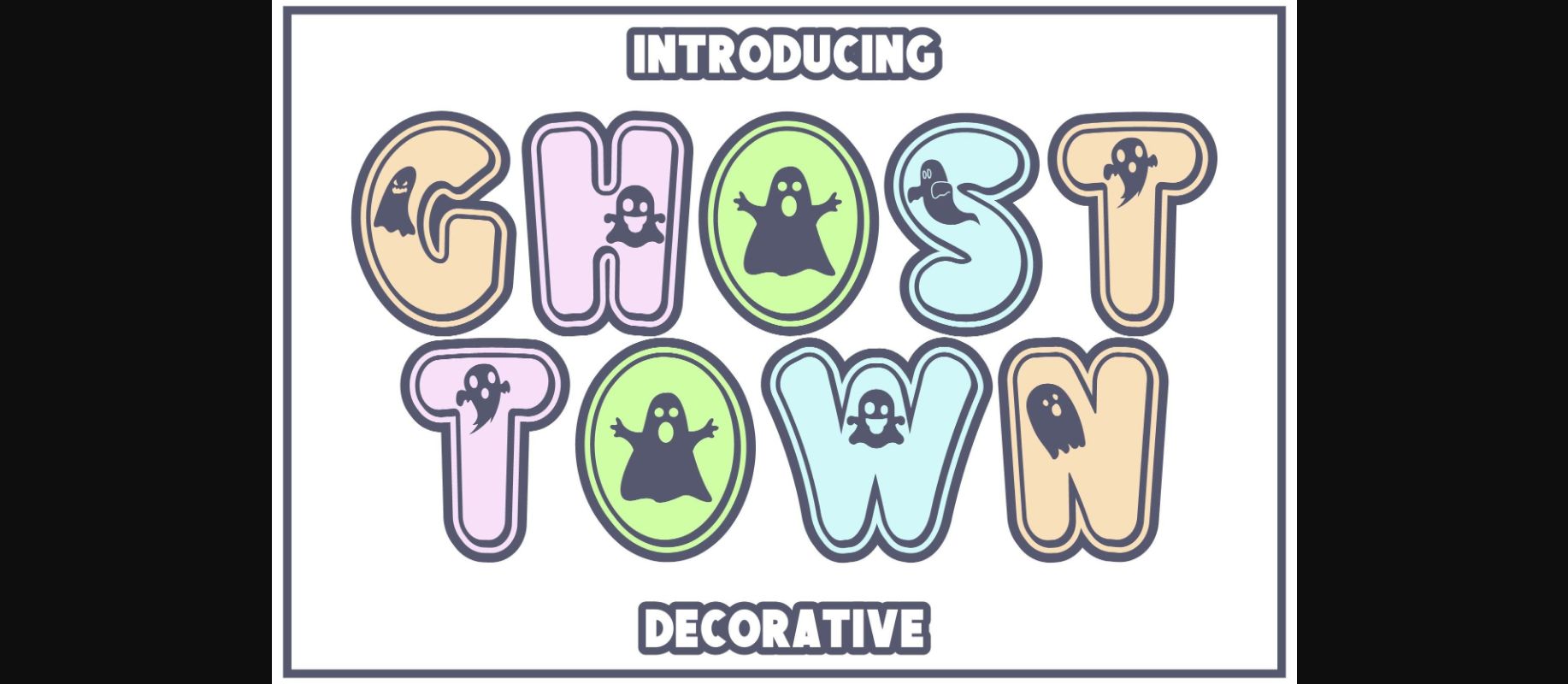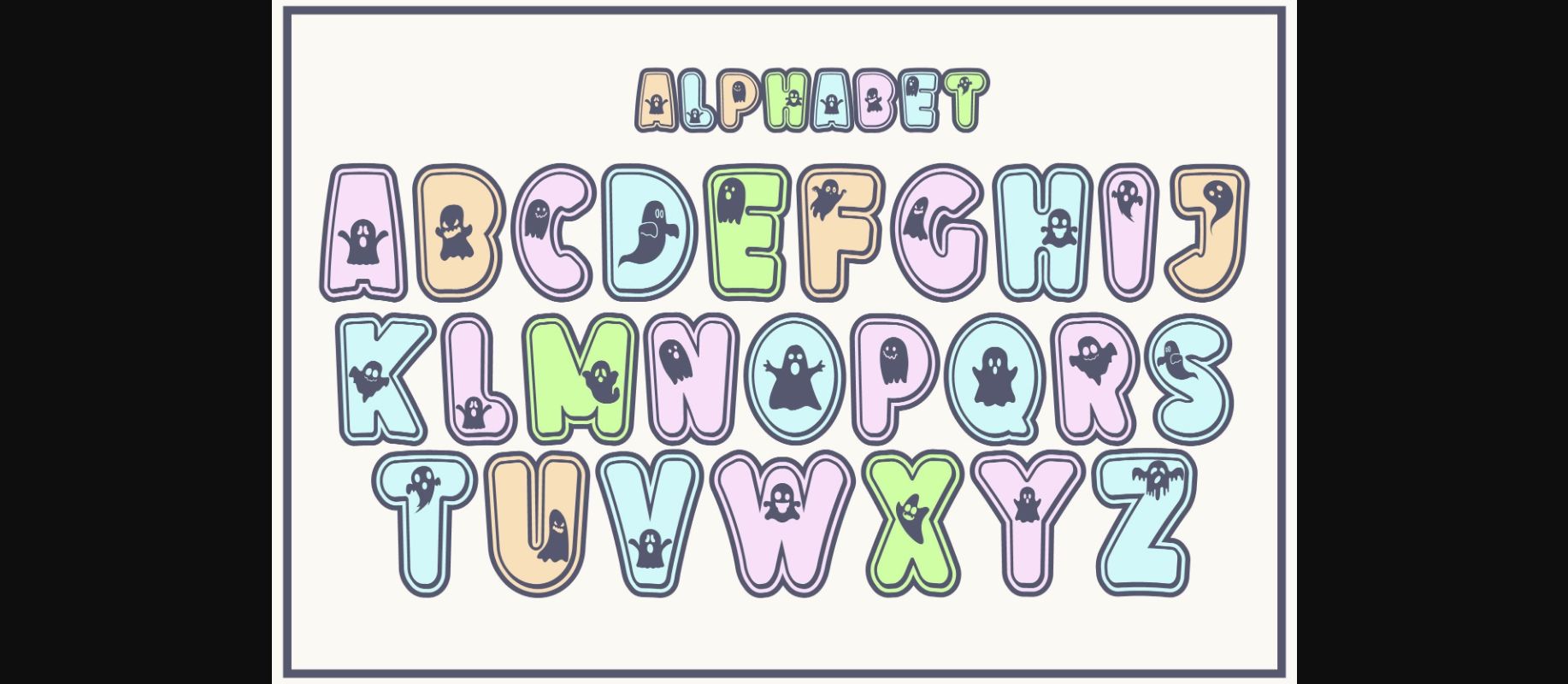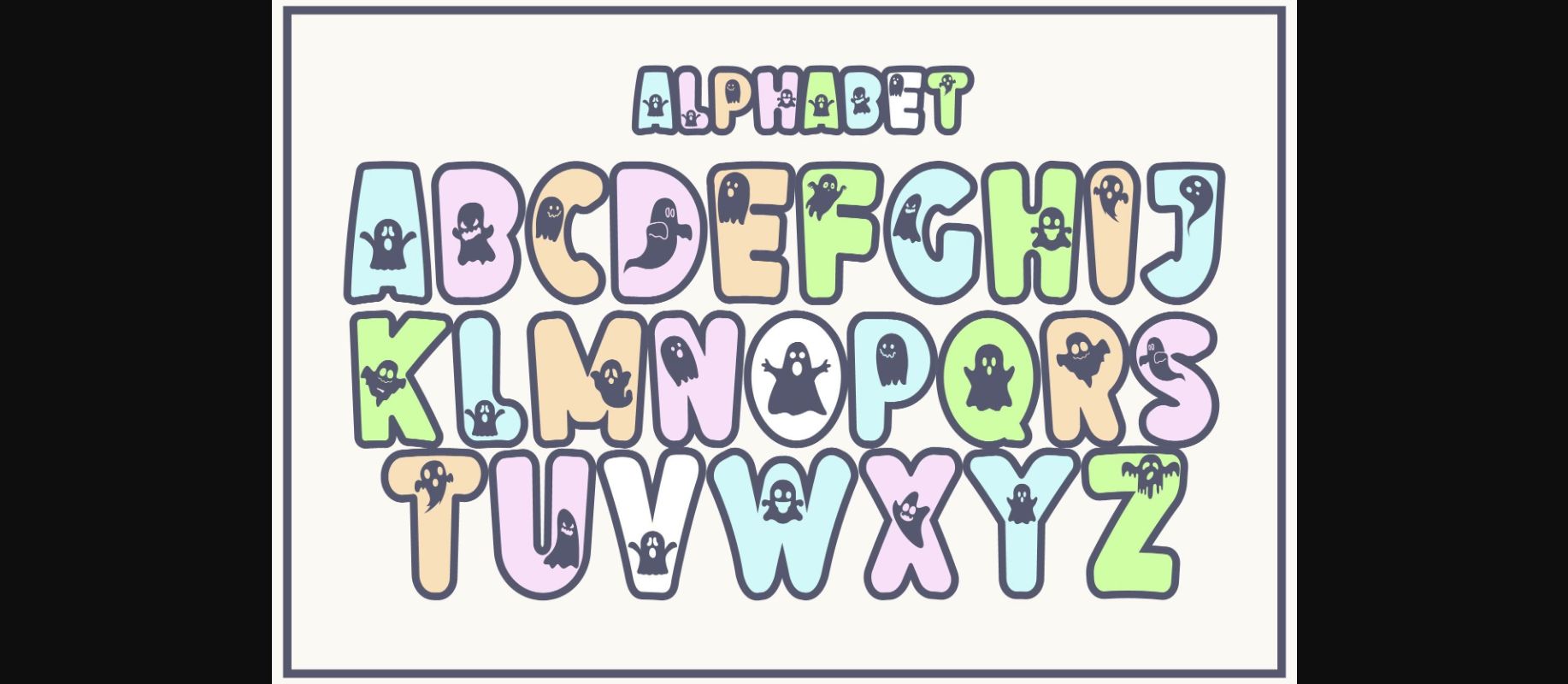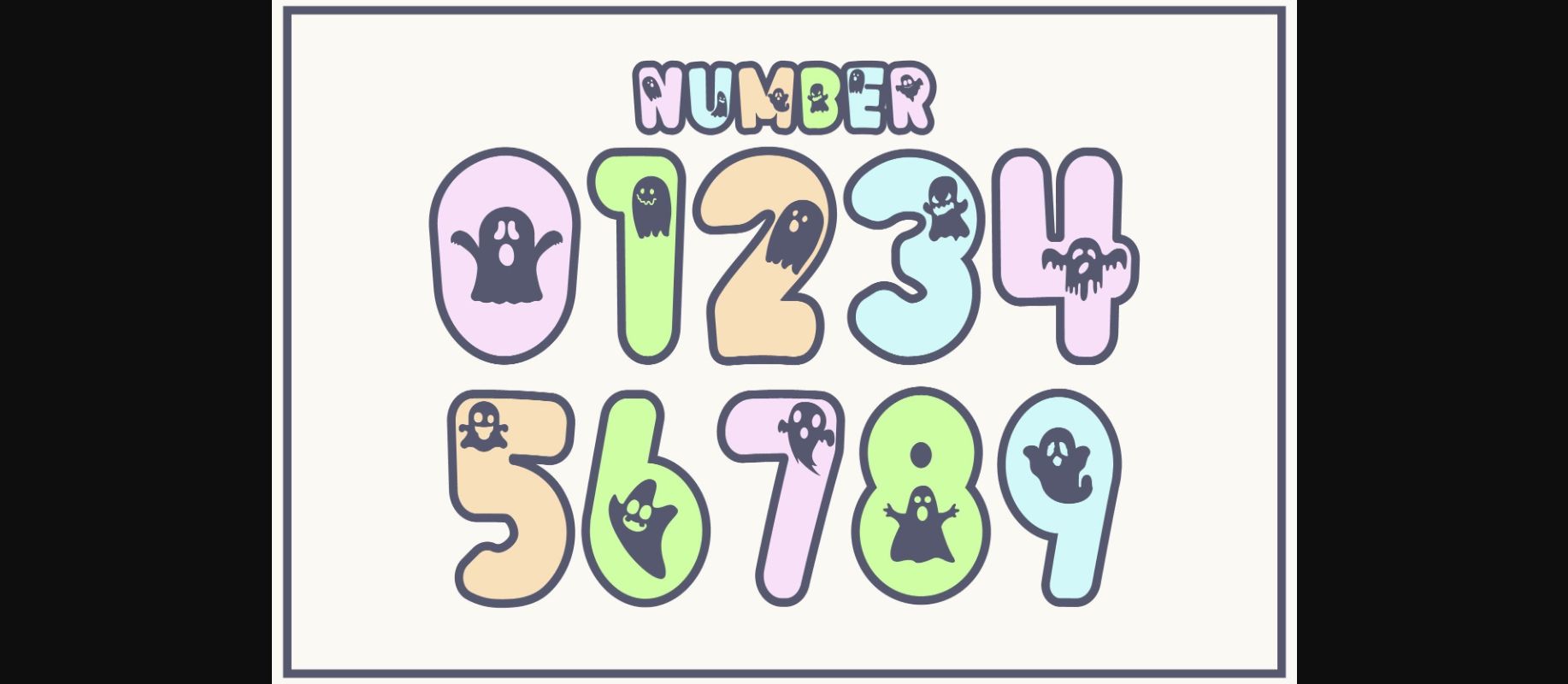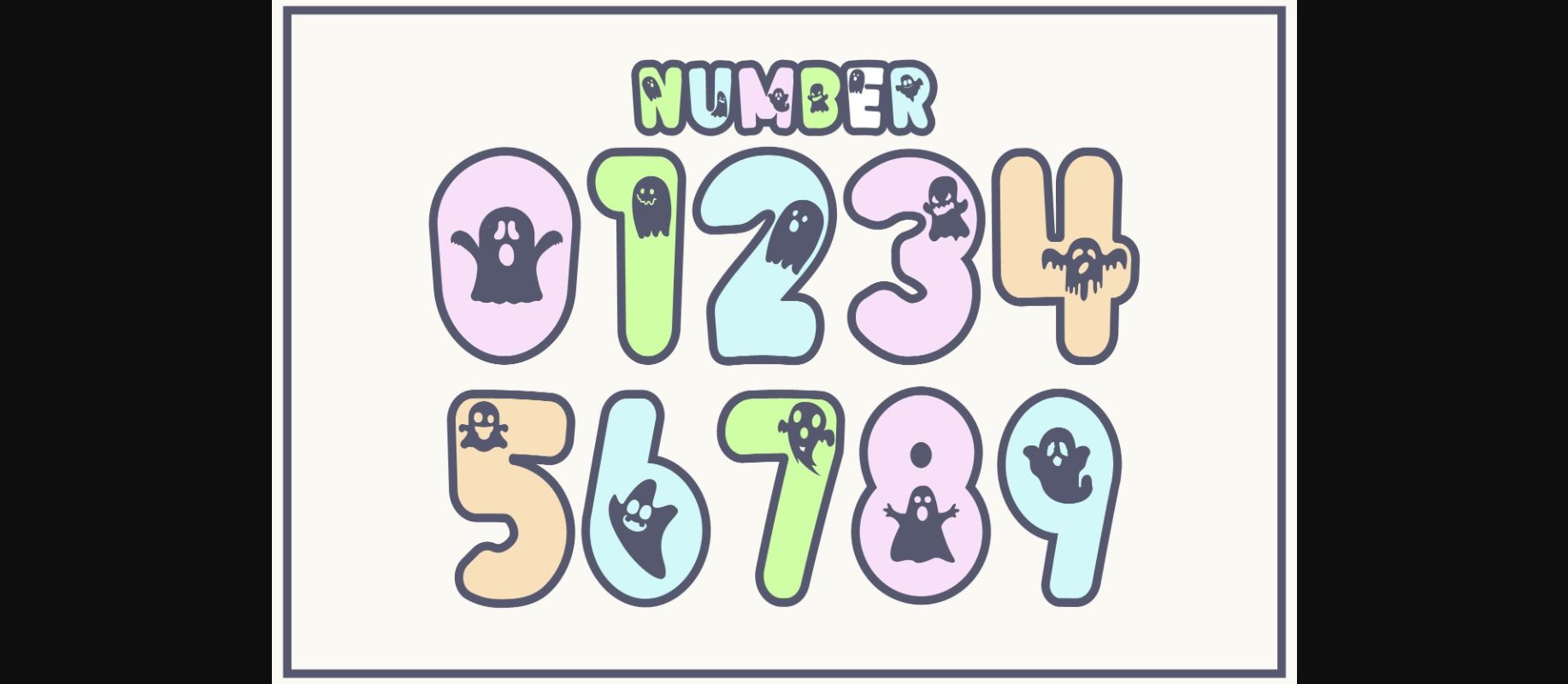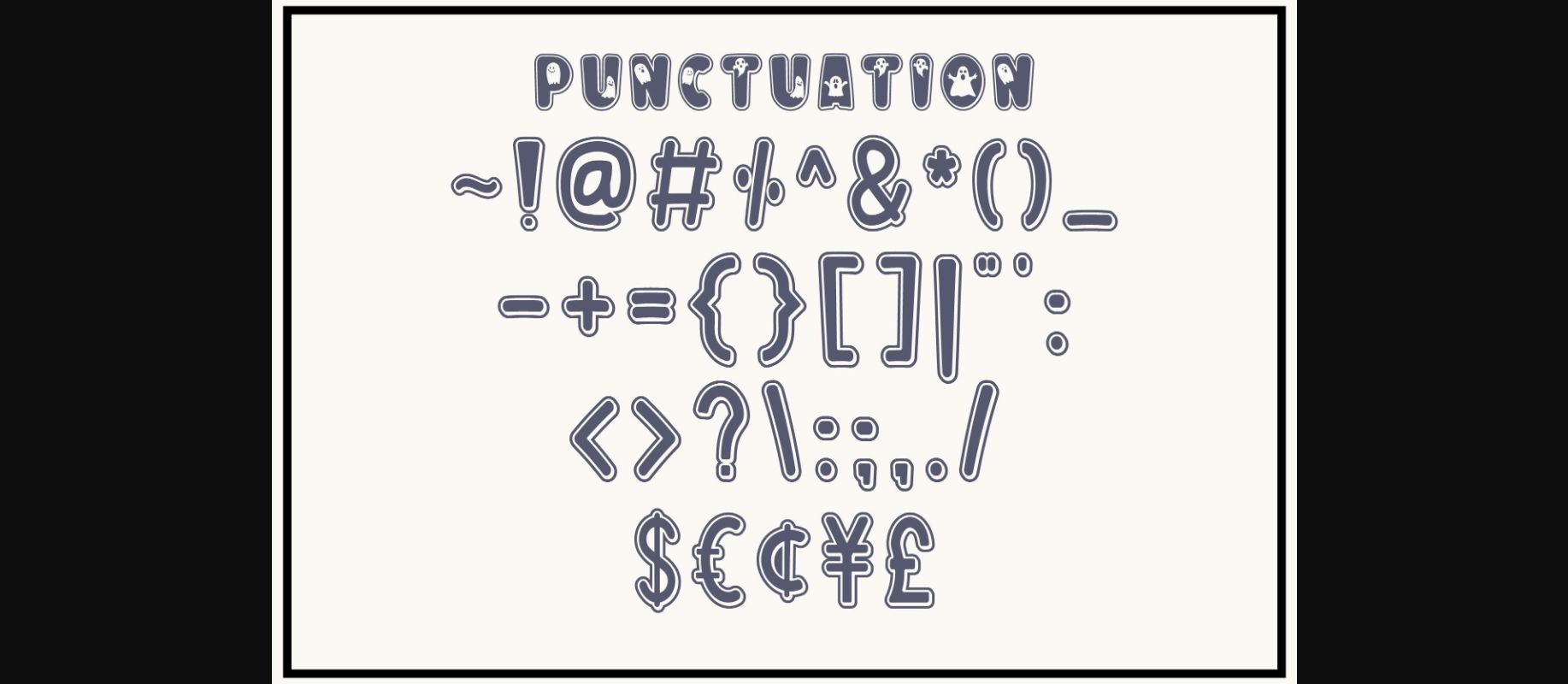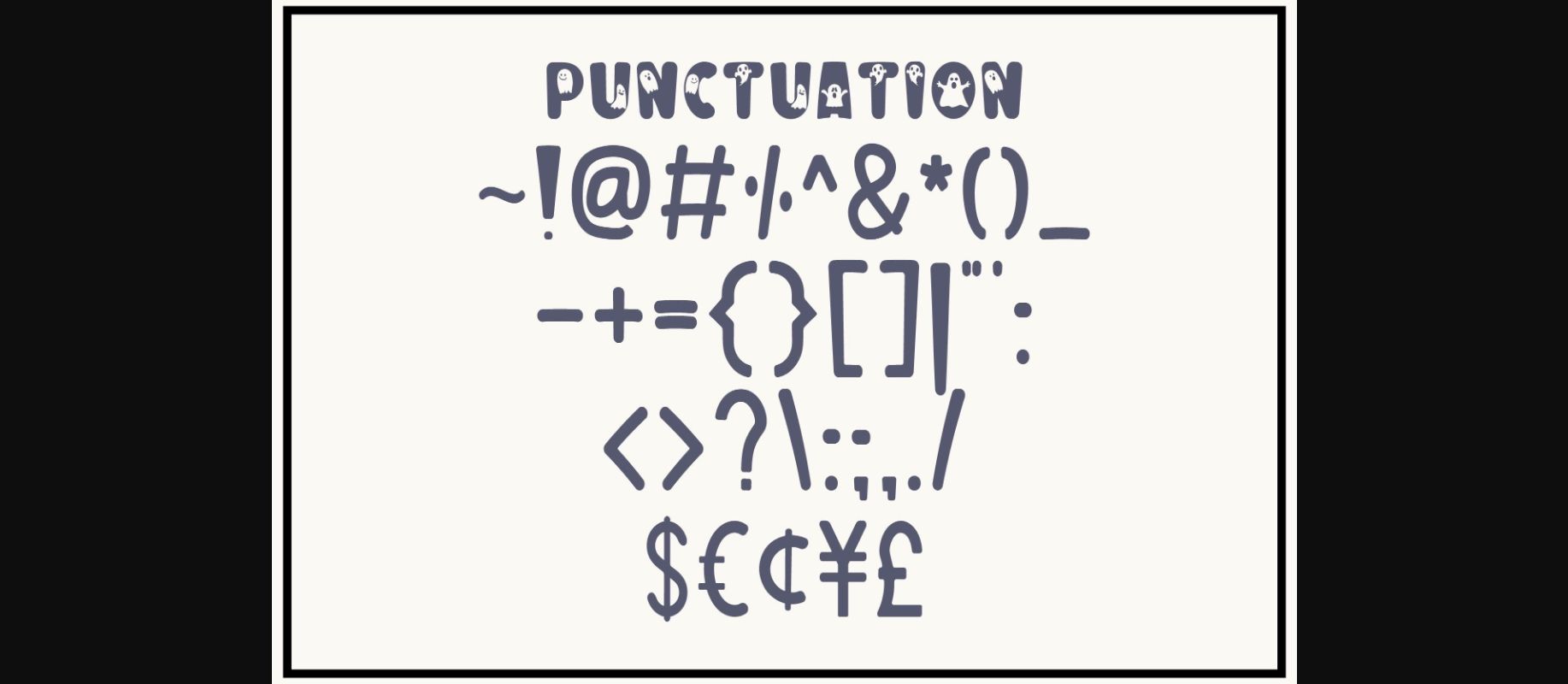
Ghost Town is a fun and adorable decorative that will fill your designs with cheerfulness! Use it on covers, posters, crafty DIY projects, and anything that needs to pop!